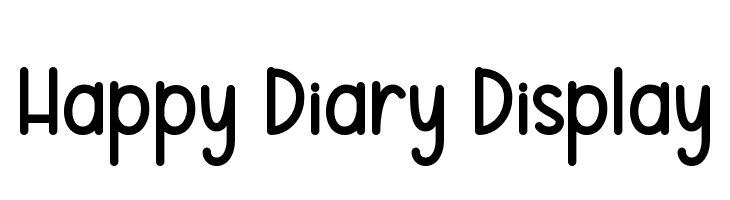
A casual, handwritten font with smooth, flowing lines and a friendly vibe.
Playful, rounded handwritten font.
A playful, bold, and rounded font with a whimsical, handwritten style.
A bold, playful font with thick, rounded characters perfect for fun designs.